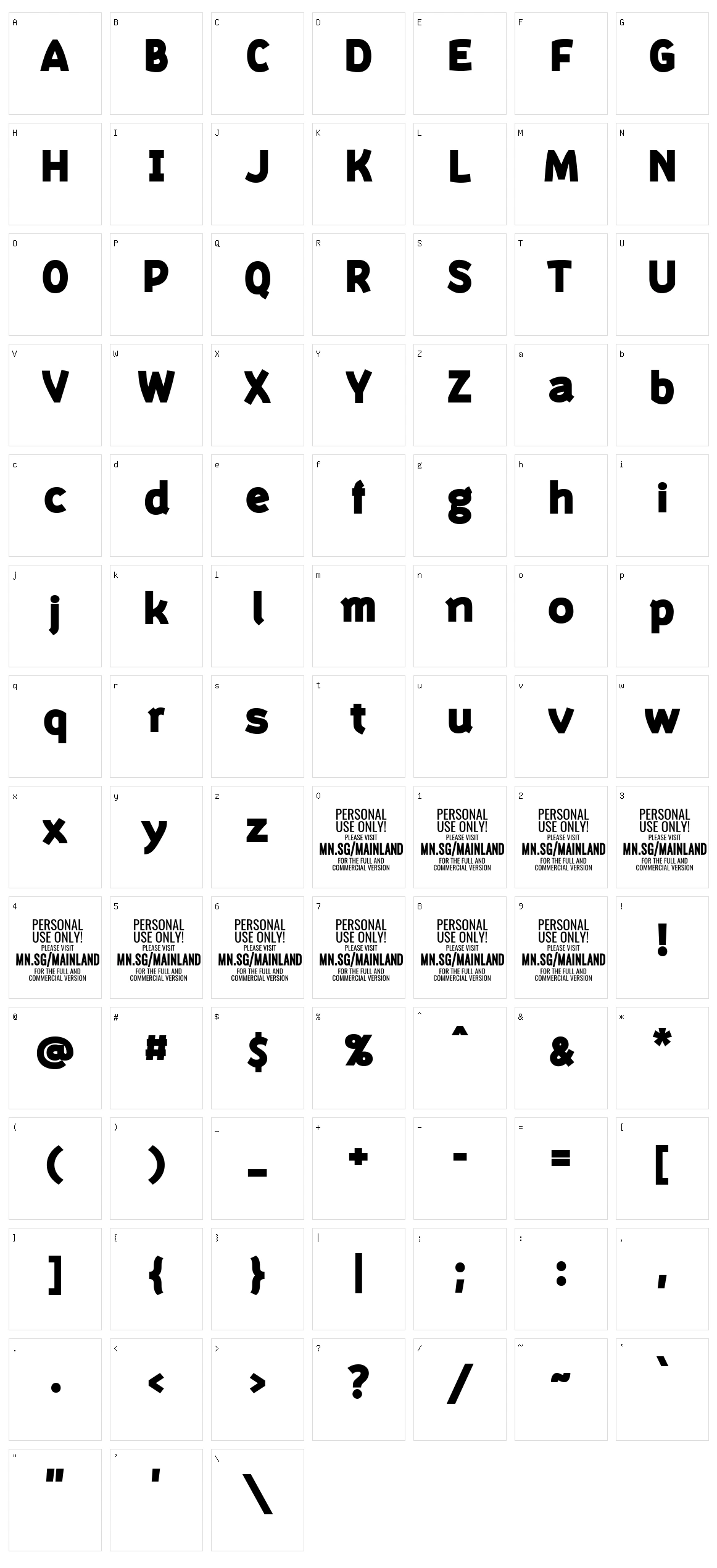
Mainland is a high-quality sans-serif typeface, drawn by Måns Grebäck.
The typeface family comes in five weights, from Thin to Black.
In addition to that there are Italics, totaling 10 styles.
Extensive language support makes the font possible to use for any European Latin based language.